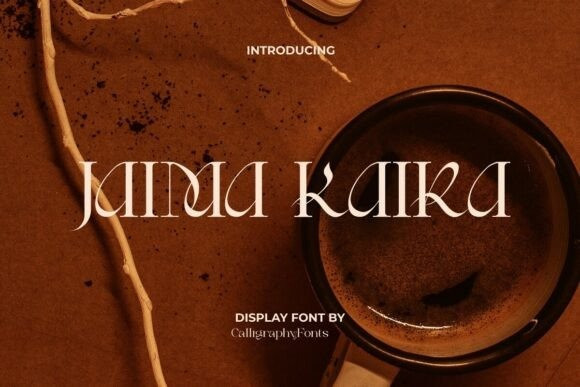
Jaima Kaira Font
Jaima Kaira Font is a beautiful, sophisticated serif display font that will catch the eye and make any design stand out. Bring your brand to life with this modern font style. Use it for banner, billboard, brand logo, brochure, business cards, covers, headings, headline, invitations, labels, quotes, social media branding, stationery, titles, website, etc.
With bold strokes, artistic curves, and high-fashion energy, this font is perfect for designs that need to stand out with confidence and class, whether you’re crafting branding for beauty or fashion.